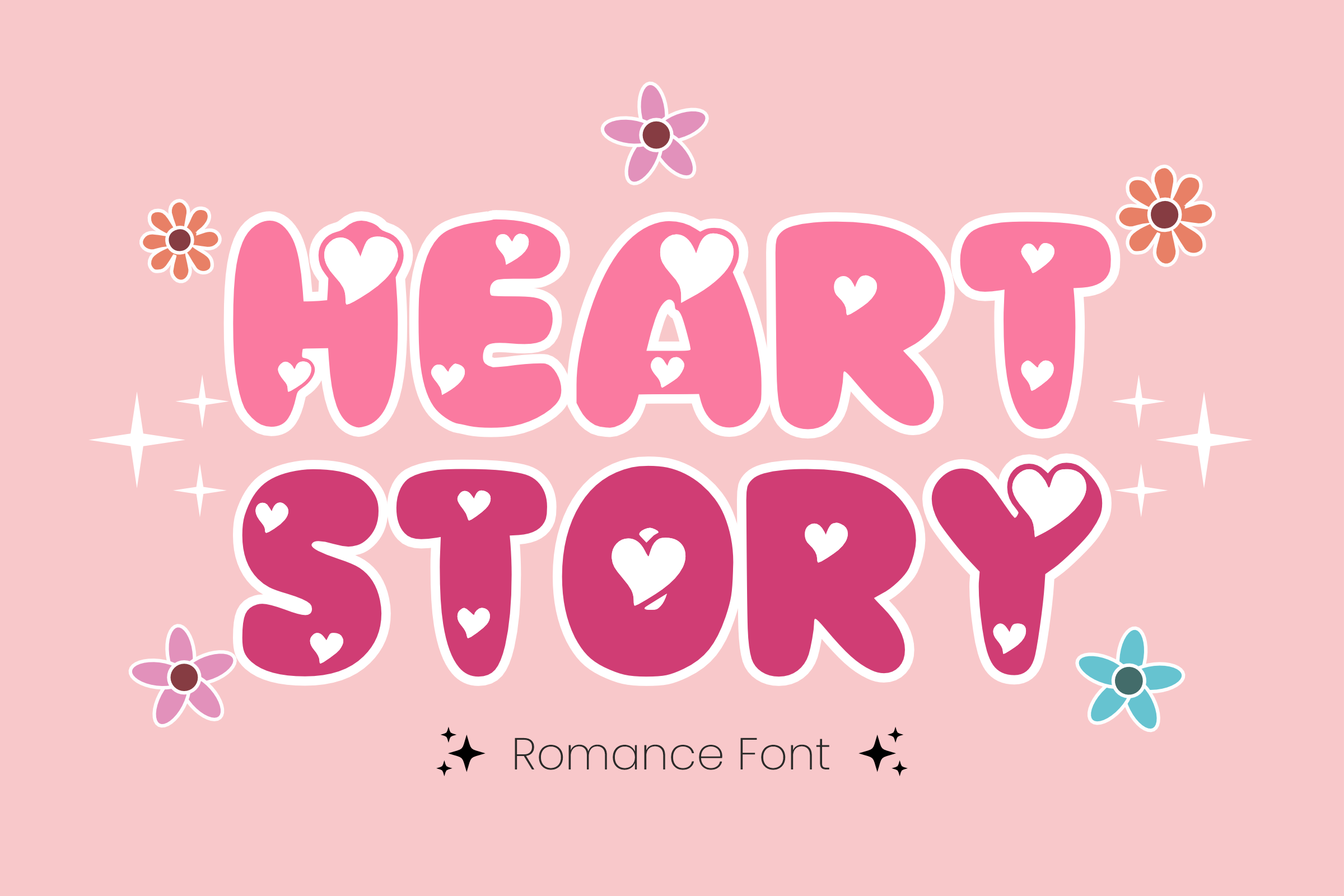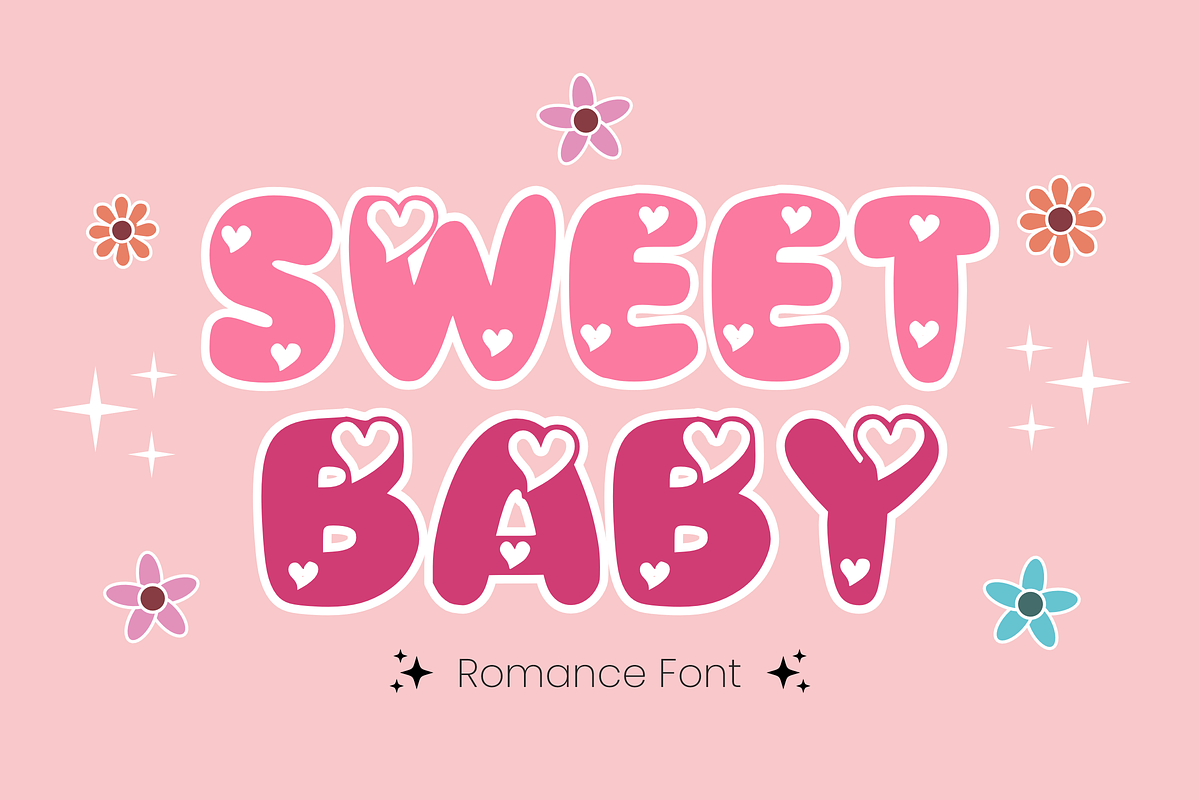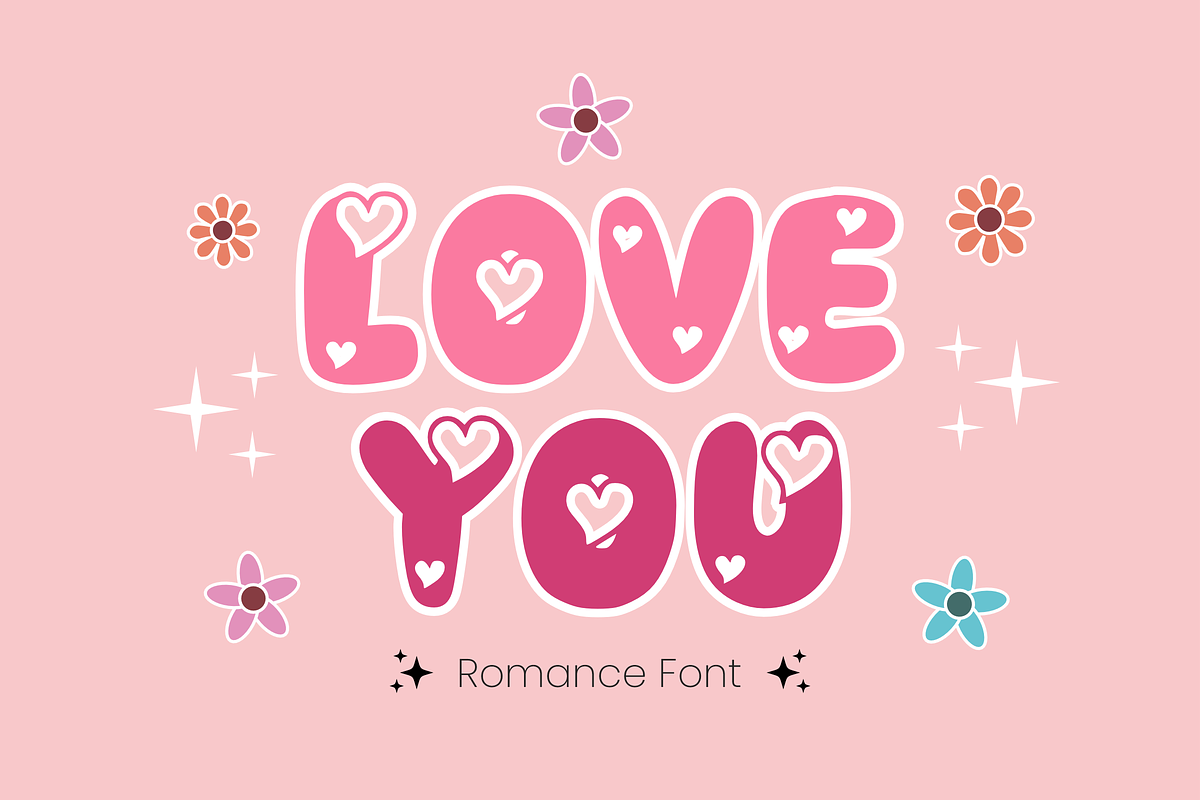
Heart Story - Cartoon Font Types
Introducing “Heart Story” is a cute and modern romantic font; each character is filled with love signs, so it is easy to recognize. Perfect for sublimation design of t-shirts, mugs, tote bags, animations, comic titles, invitations, greeting cards, and more. Pour your imagination with it!